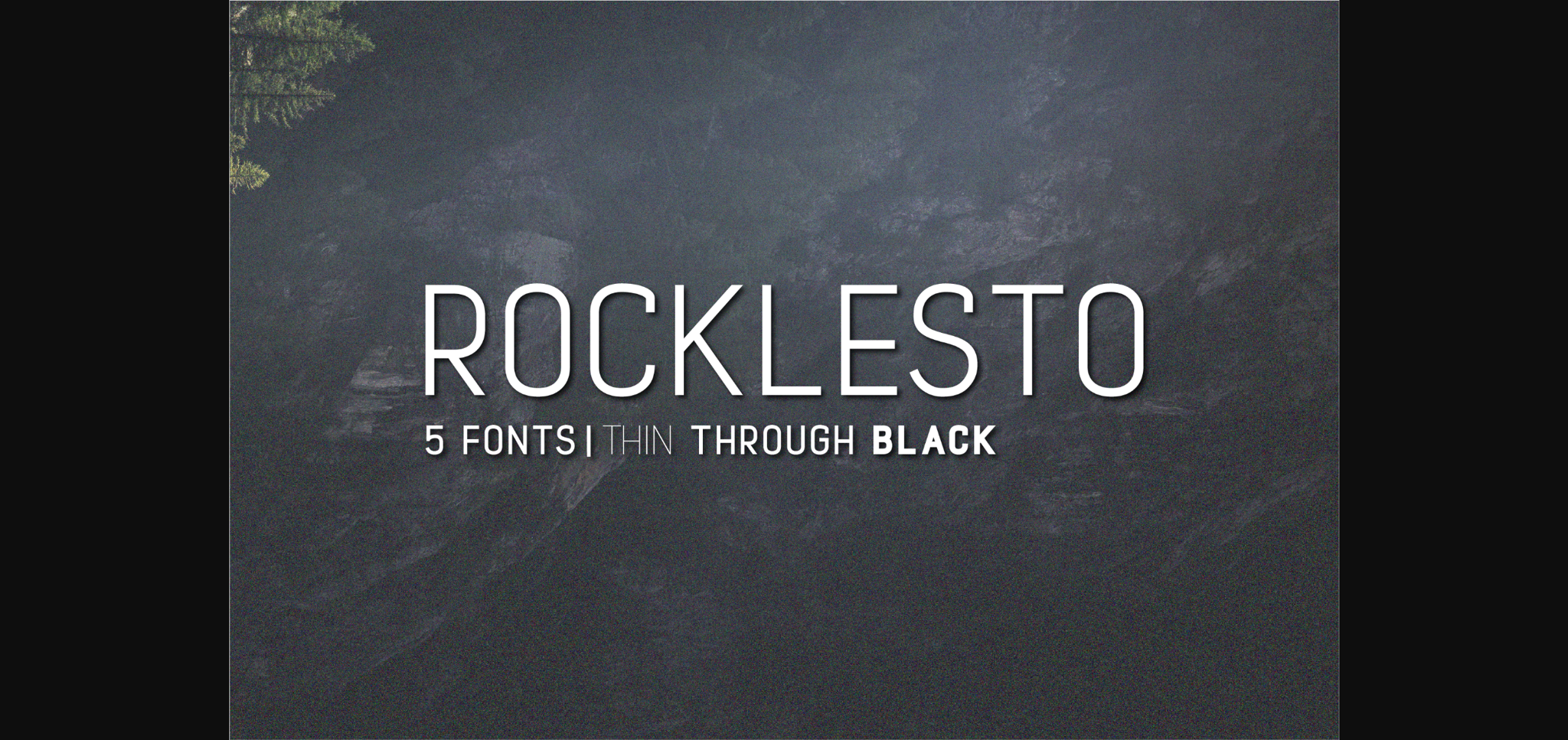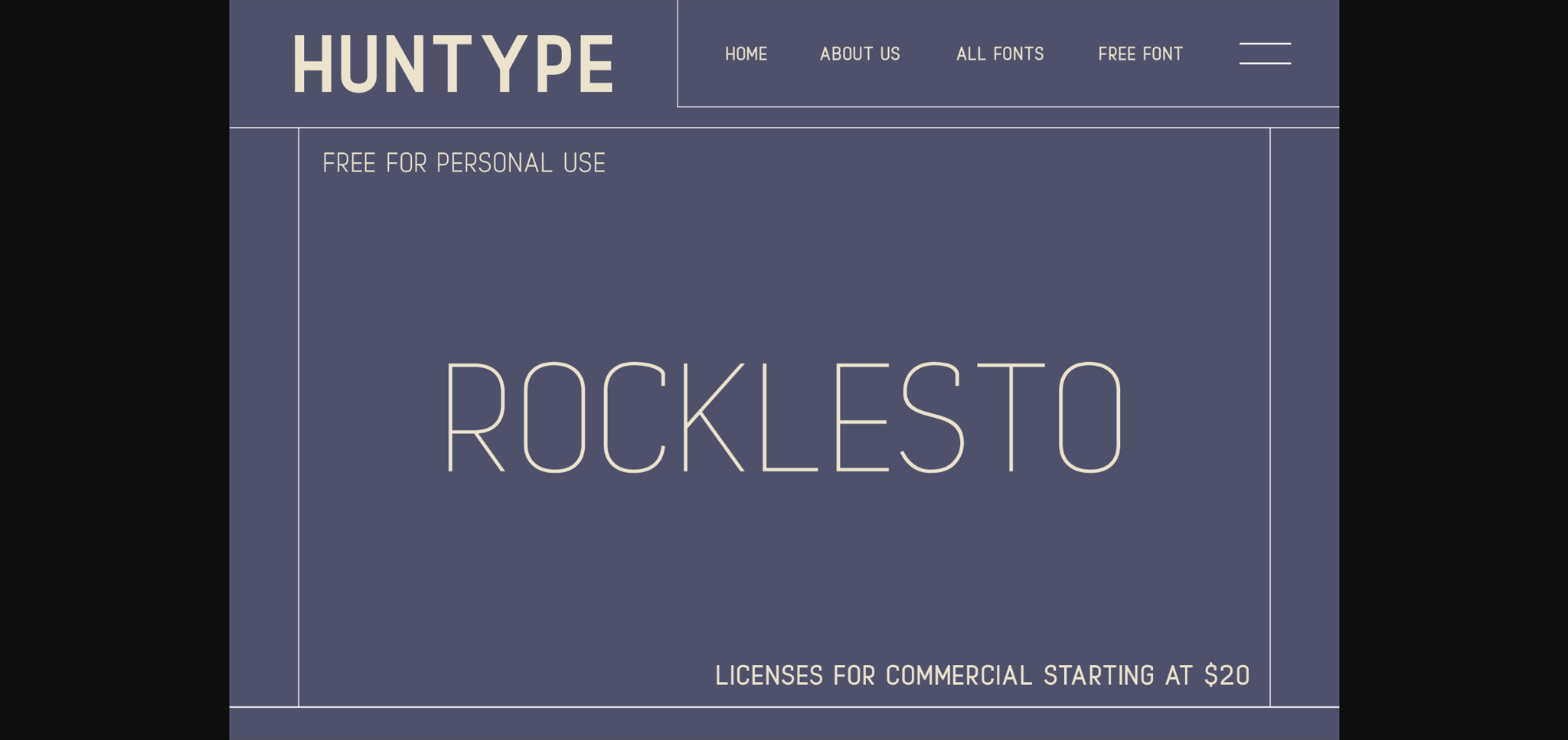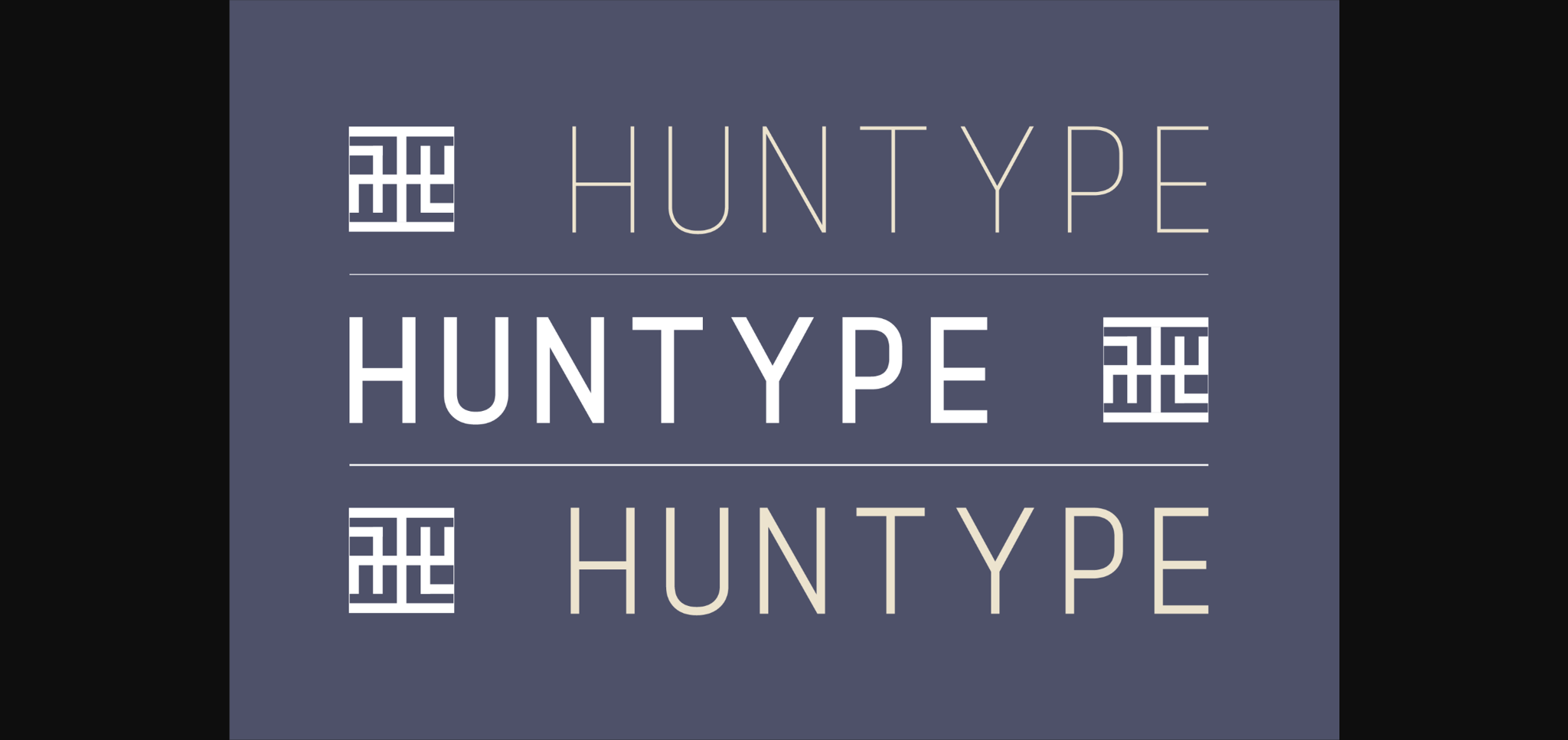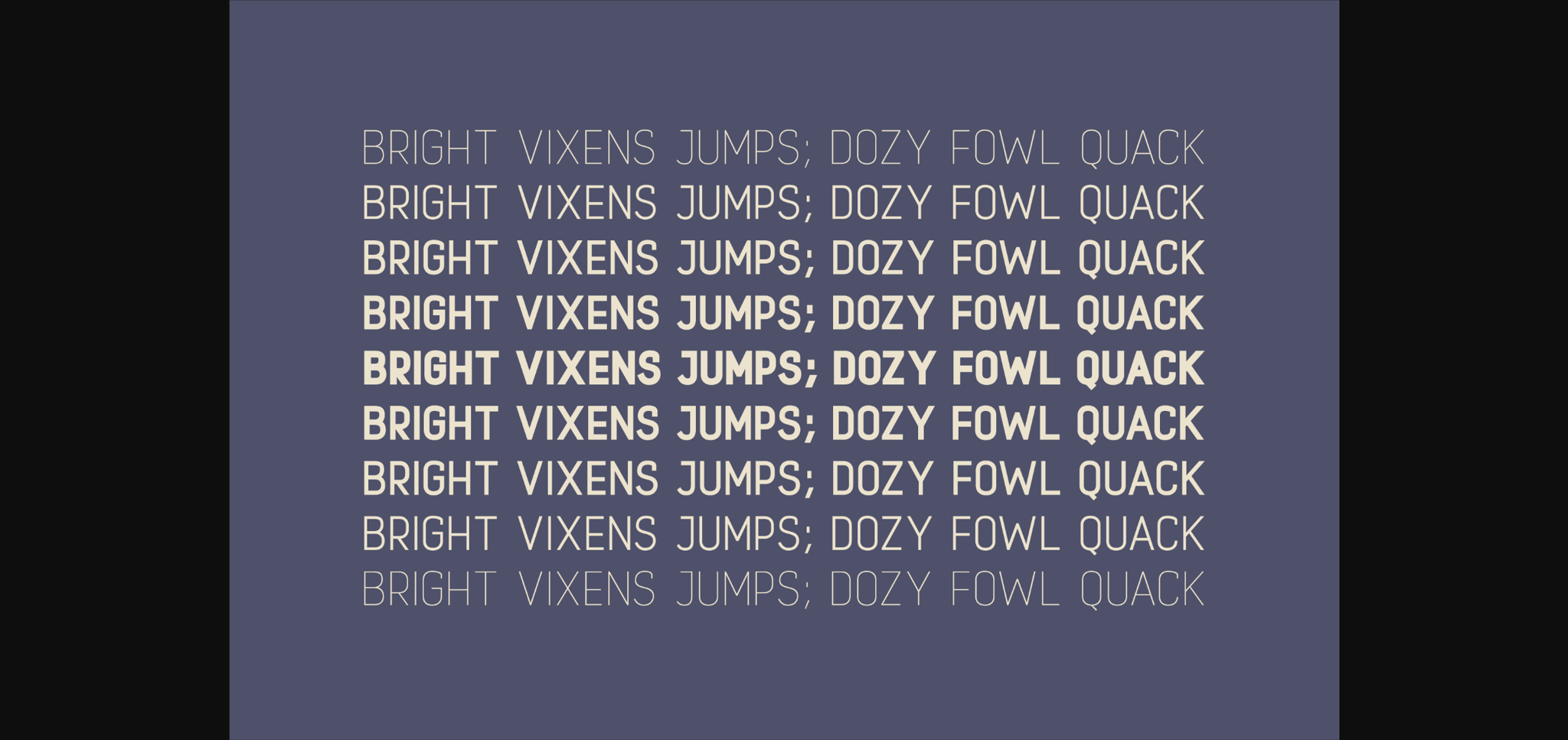
About Rocklesto Family Font
Introducing the Rocklesto Font Family β a blend of fine elegance and avant-garde appeal. Itβs a vivid manifestation of contemporary class and functional dynamism. With five distinct weights β THIN, LIGHT, REGULAR, BOLD, and BLACK β Rocklesto Font Family extends a broad palette of artistic possibilities. This collection offers the flexibility to craft subtle, graceful designs or empower your creations with a strong, attention-grabbing impact. The beautifully merged combination of timeless chic and modern nuances in the Rocklesto Font Family ensures that every project sparkles with an unmatched glow of originality and sophistication.